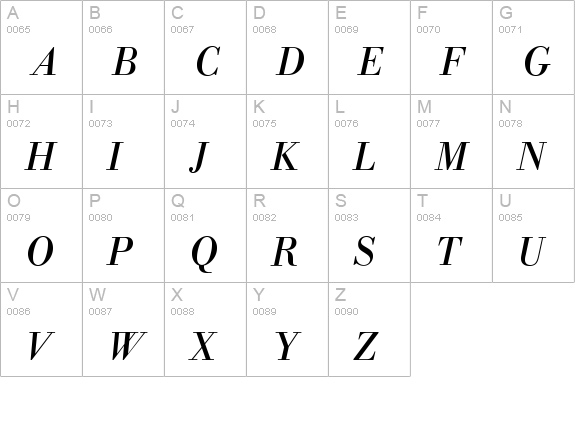
Bodoni Berthold Exp BQ Italic OsF Font Details
Bodoni Berthold Exp BQ Italic OsF is a distinctive, italic variant in the Bodoni typeface family \xE2\x80\x94 well suited to design and typography projects.
The Bodoni Berthold Exp BQ Italic OsF font is a sophisticated and elegant typeface that exudes a sense of timeless beauty and classic refinement. With its graceful curves, delicate serifs, and slanted italic design, this font is perfect for adding a touch of sophistication to any project. This font is ideal for creating elegant invitations, luxury branding, editorial design, and more. Its stylish and modern appearance makes it a versatile choice for a wide range of design projects. Whether you're working on a high-end fashion magazine, a luxury product packaging, or a classy wedding invitation, the Bodoni Berthold Exp BQ Italic OsF font will elevate your design to the next level. And the best part? This exquisite font is available for free download at FontsMarket.com! So you can easily add this stunning typeface to your collection without breaking the bank. Don't miss out on the opportunity to enhance your designs with the timeless beauty of the Bodoni Berthold Exp BQ Italic OsF font. Download it today and elevate your projects with a touch of elegance and sophistication.